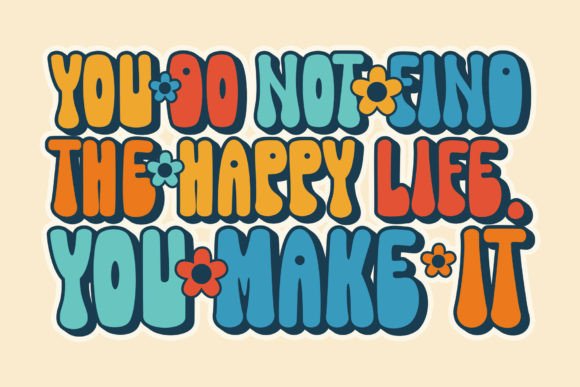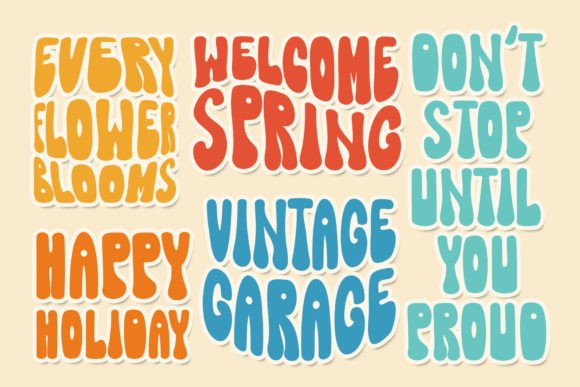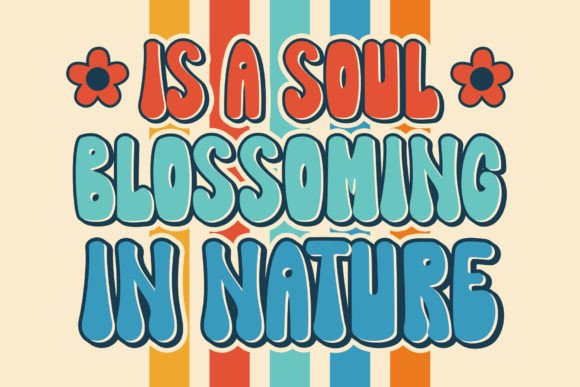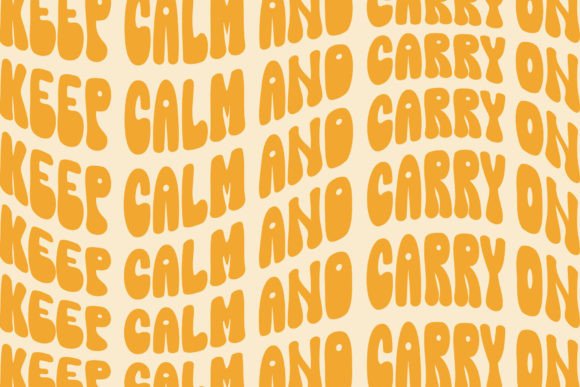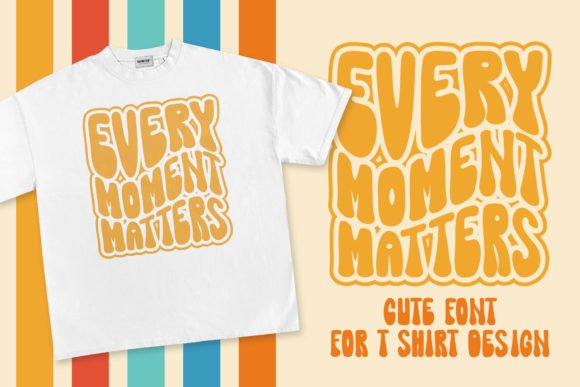
The Ultimate Guide to Barbie Groovy Font: Elevate Your Designs with Retro Charm
I’ll never forget the time I was working on a vintage-themed greeting card project, and I just couldn’t find the perfect font to capture that retro essence. My client wanted something that screamed fun, playfulness, and a dash of nostalgia. That’s when I stumbled upon the Barbie Groovy Font, and it instantly became my go-to choice. In this article, I’ll share my love for this versatile font, its features, and how to make the most of it in your designs.
An Honest Review of Barbie Groovy Font
So, what makes Barbie Groovy Font so special? Let’s dive into the good stuff! 😊
- ✨ Versatile and playful: This font is perfect for a wide range of applications, from greeting cards and headlines to posters and social media graphics.
- ✅ Retro charm: Barbie Groovy Font has a unique, stylish, and exquisite feel that will add a touch of nostalgia to your designs.
- 💡 PUA encoded: With PUA encoding, you can access all glyphs freely, making it easy to experiment and create stunning text arrangements.
Now, I’m not going to sugarcoat it – there are a few minor quirks to keep in mind:
- ⚠️ Limited use in very formal designs: While Barbie Groovy Font is amazing for creative projects, it might not be the best fit for very formal or professional designs.
- 🤔 Some glyphs require manual adjustment: Depending on your design software, you might need to manually adjust some glyphs to get the perfect look.
The Story Behind Barbie Groovy Font
Legend has it that the creator of Barbie Groovy Font was inspired by the iconic fashion doll of the 1960s. They wanted to capture the essence of that era’s playful, carefree spirit and translate it into a modern font. The result is a unique blend of retro charm and versatility.
| Is Barbie Groovy Font suitable for body text? | While Barbie Groovy Font is stunning for headlines and titles, it might not be the best choice for body text due to its decorative nature. |